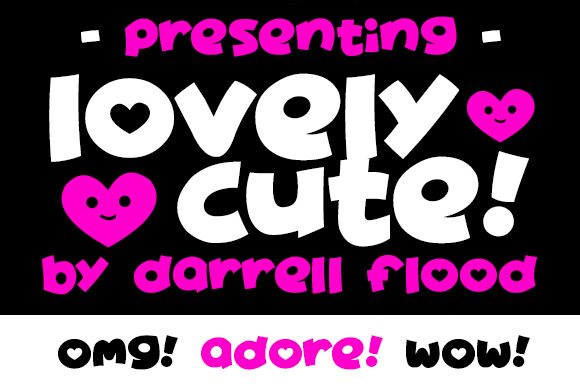
Lovely Cute Italic
Lovely Cute Italic is a bold, wide display font designed by Darrell Flood. Its comic style will bring joy and cuteness to any project. It's perfect for children's books, birthday cards, or anything which needs to stand out from the crowd. Lovely Cute Italic is sure to add a unique charm to any design!